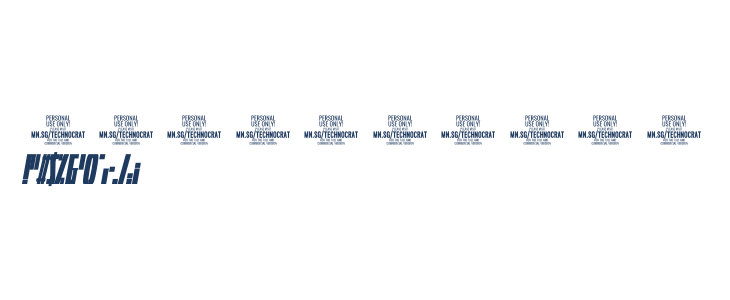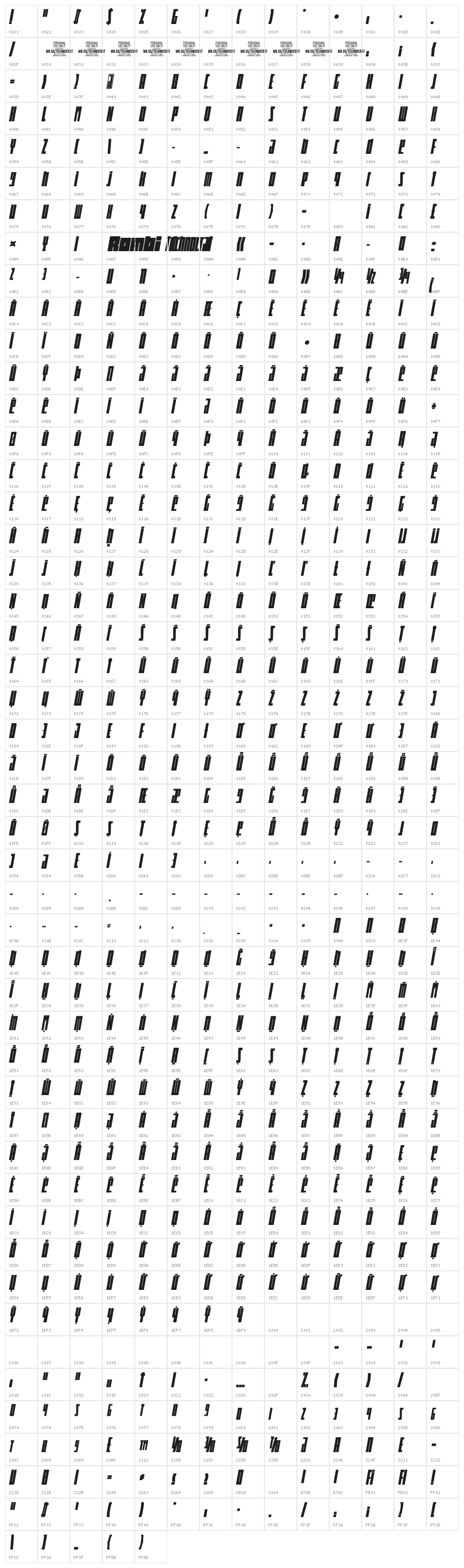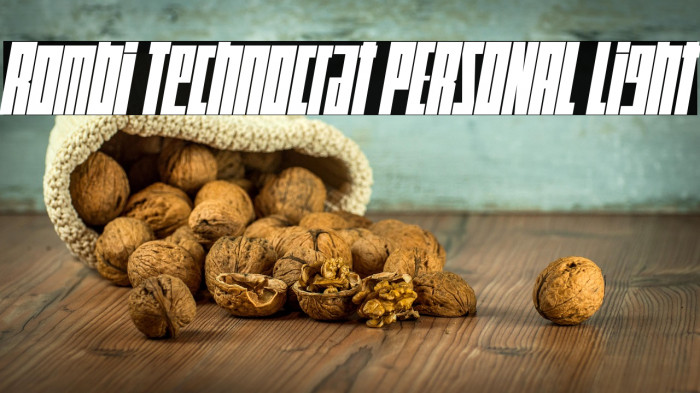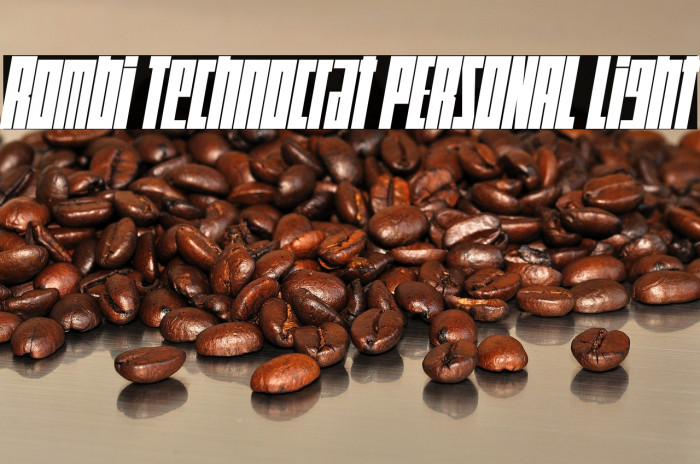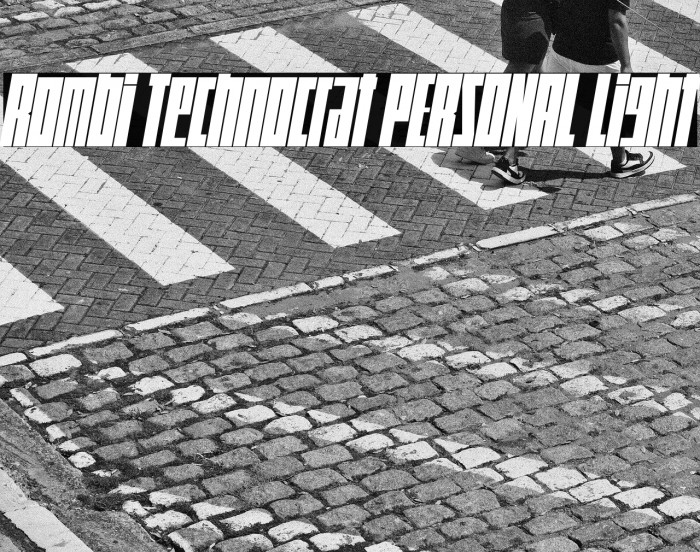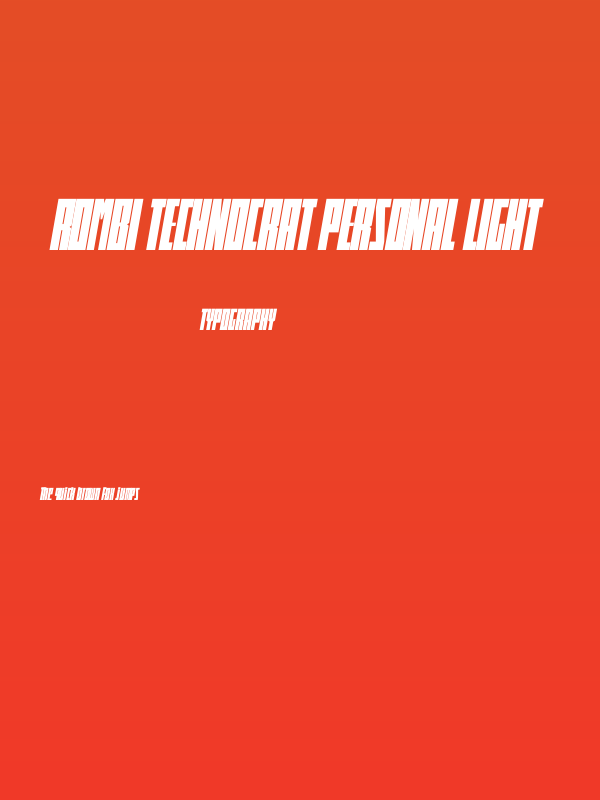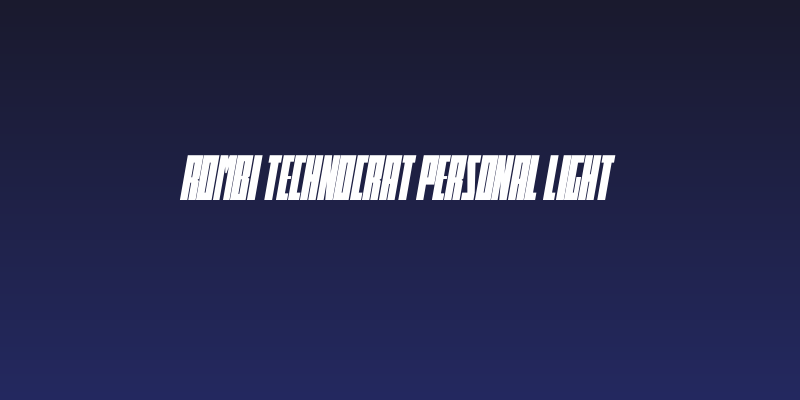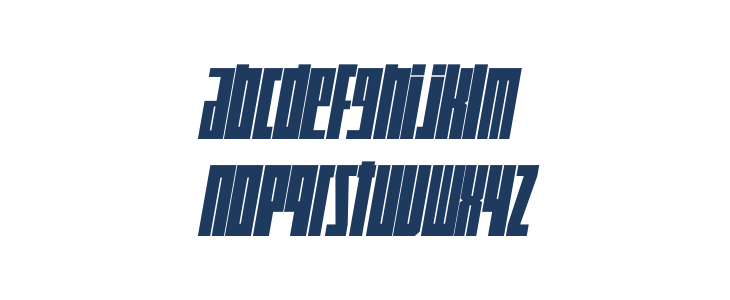
Rombi Technocrat PERSONAL Light Font
Rombi Technocrat PERSONAL Light Description
This font features a bold, geometric design with a futuristic and technological aesthetic. The characters are sharply angled and condensed, creating a dynamic and impactful appearance. The uppercase and lowercase letters maintain a consistent style, with a strong emphasis on vertical lines and sharp edges. The numbers and special characters follow the same design principles, ensuring uniformity across all glyphs. This font's unique style makes it suitable for projects that require a modern and edgy look.